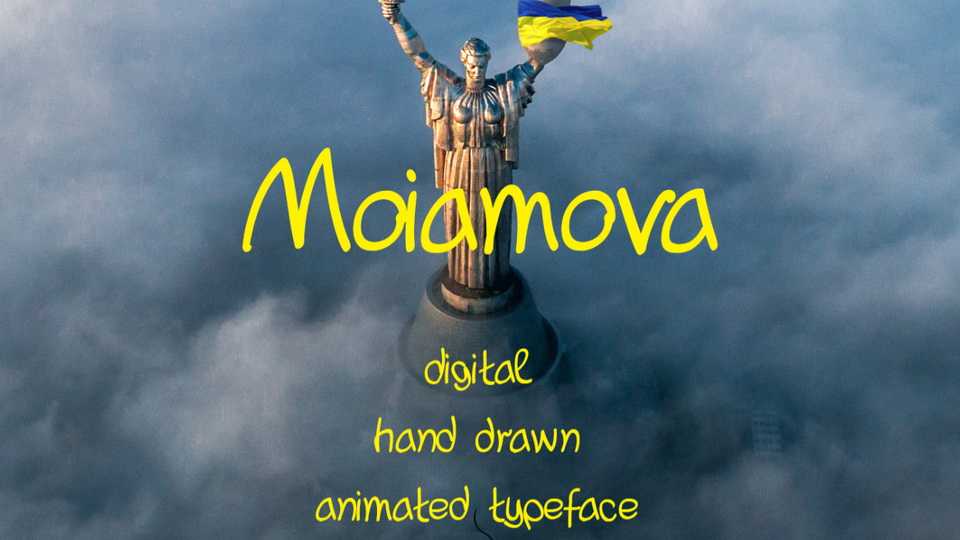
Download Moiamova font, a digital hand drawn animated typeface inspired by old moves. Moiamova comes in four styles and has Latin and Cyrillic languages support.
Designer: Yevhen Kolotov